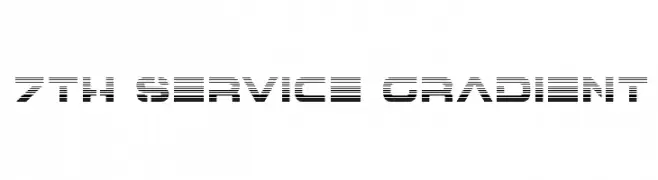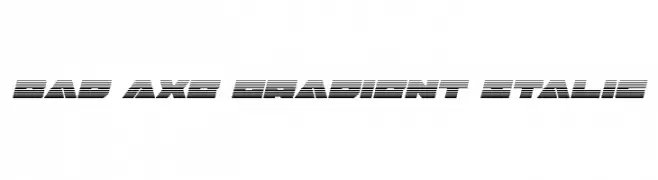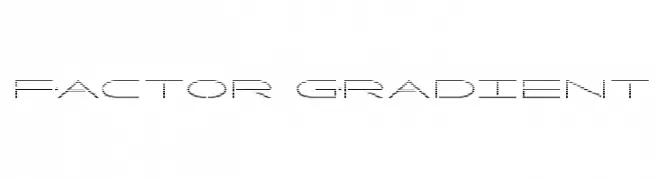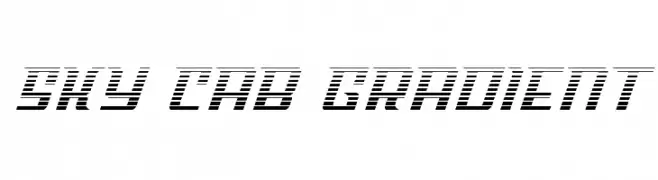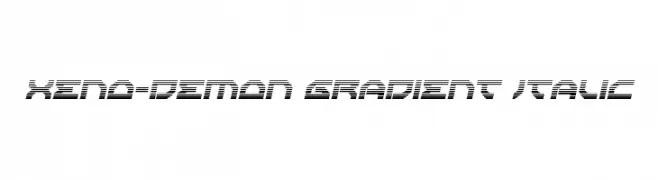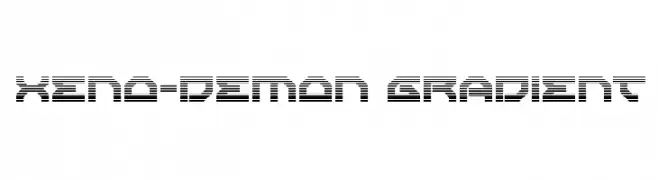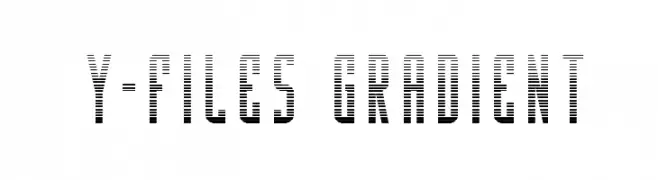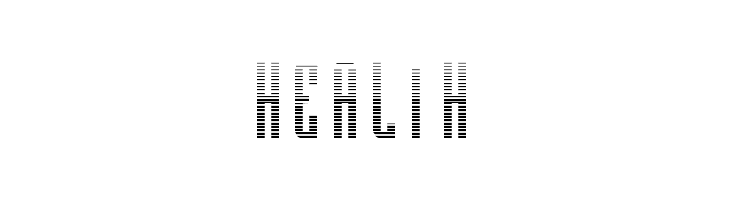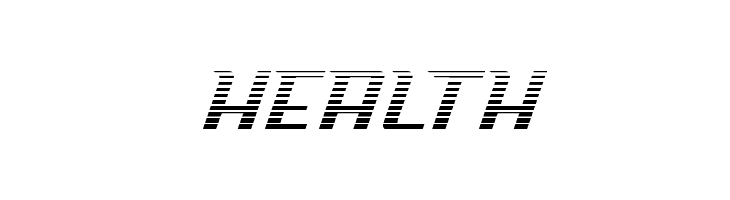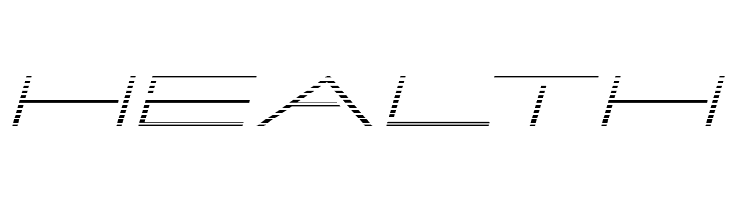
A bold, 3D font with a gradient effect and retro-modern appeal.
A bold, geometric font with a gradient effect, perfect for modern designs.
A bold, geometric font with a gradient effect and modern design.
A bold, 3D-effect font with rounded edges and gradient shading.
A bold, modern font with a dynamic gradient effect, ideal for striking headlines.
A bold, italic font with a textured, gradient-like effect and a modern, dynamic style.
A bold, decorative font with a gradient effect and tattoo-inspired design.
A bold, 3D geometric font with a gradient pattern and shadow effect.
A bold, 3D font with a metallic gradient effect and rounded edges.
A bold, decorative font with a melting gradient effect and shadowed edges.
A bold, italicized font with a two-tone gradient effect, exuding energy and modernity.
A geometric and modern font with angular lines and a futuristic aesthetic.
A modern, halftone-style font with horizontal line gradients.
A bold, futuristic font with a halftone gradient effect.
A bold, dynamic font with a slanted, energetic design and gradient effect.
A bold, pixelated font with a dotted gradient effect, ideal for digital or retro-themed designs.
A bold, geometric font with a halftone gradient effect.
A bold, striped font with a modern and dynamic design.
A bold, decorative font with a city skyline effect created by horizontal lines.
A whimsical, book-inspired display font with illustrated, characterful glyphs.
An artistic and illustrative font featuring unique graphic representations for each character.
Abstract, nature-inspired dingbat font with bold, decorative shapes.
A bold, retro-futuristic font with dynamic, angular lines and a comic book feel.
A futuristic font with a digital haze effect and geometric design.
A futuristic, geometric font with a condensed and sleek design.
A bold, halftone-patterned font with a modern and retro vibe.
Bold, halftone dot pattern font with a vintage comic book style.
A bold, italicized font with a halftone effect, exuding a futuristic and dynamic style.
A bold, semi-italic font with a halftone effect, offering a dynamic and textured appearance.
A bold, italicized font with a halftone effect, perfect for modern and dynamic designs.
A bold, italicized font with a futuristic halftone effect and angular design.
A bold, italicized font with a half-tone effect and dynamic, modern style.
A bold, halftone-patterned sans-serif font with a modern, textured appearance.
A bold, italicized font with a futuristic halftone effect.